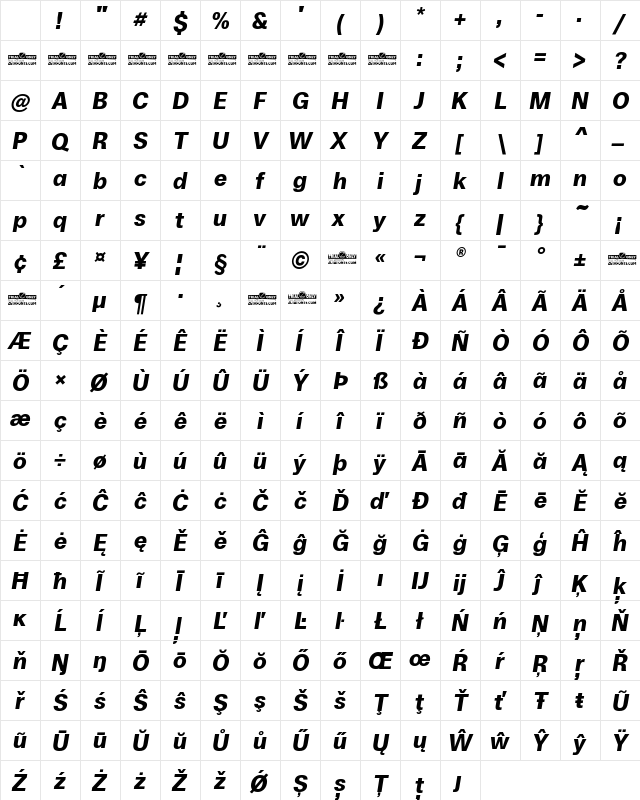
Complete Boring Sans A Trial Bold Italic glyph index. Displaying only characters natively supported by Boring Sans A Trial Bold Italic font.
Boring Sans A Trial is a composed and adaptable typeface that performs quietly and consistently across a wide range of design contexts. The slanted form adds forward momentum and visual energy. Its bold stroke weight gives it real presence on the page.